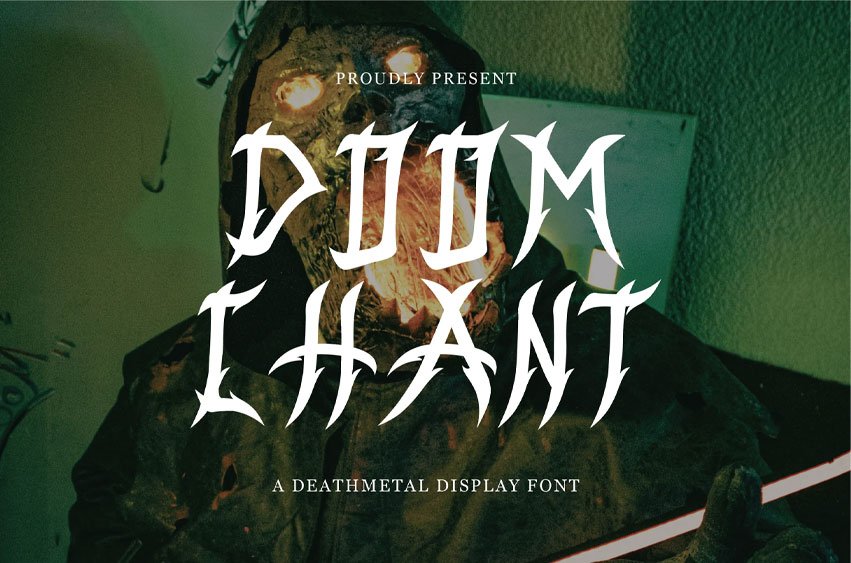
Doomchant Font
Doomchant Font is a bold, heavy death metal font that embodies darkness and intensity. With jagged edges and sharp, distorted shapes, it exudes a powerful, aggressive vibe perfect for metal album covers, band logos, and posters.
Its raw, brutal aesthetic captures the essence of the death metal genre, making it ideal for designs that demand attention and convey a sense of chaos and destruction